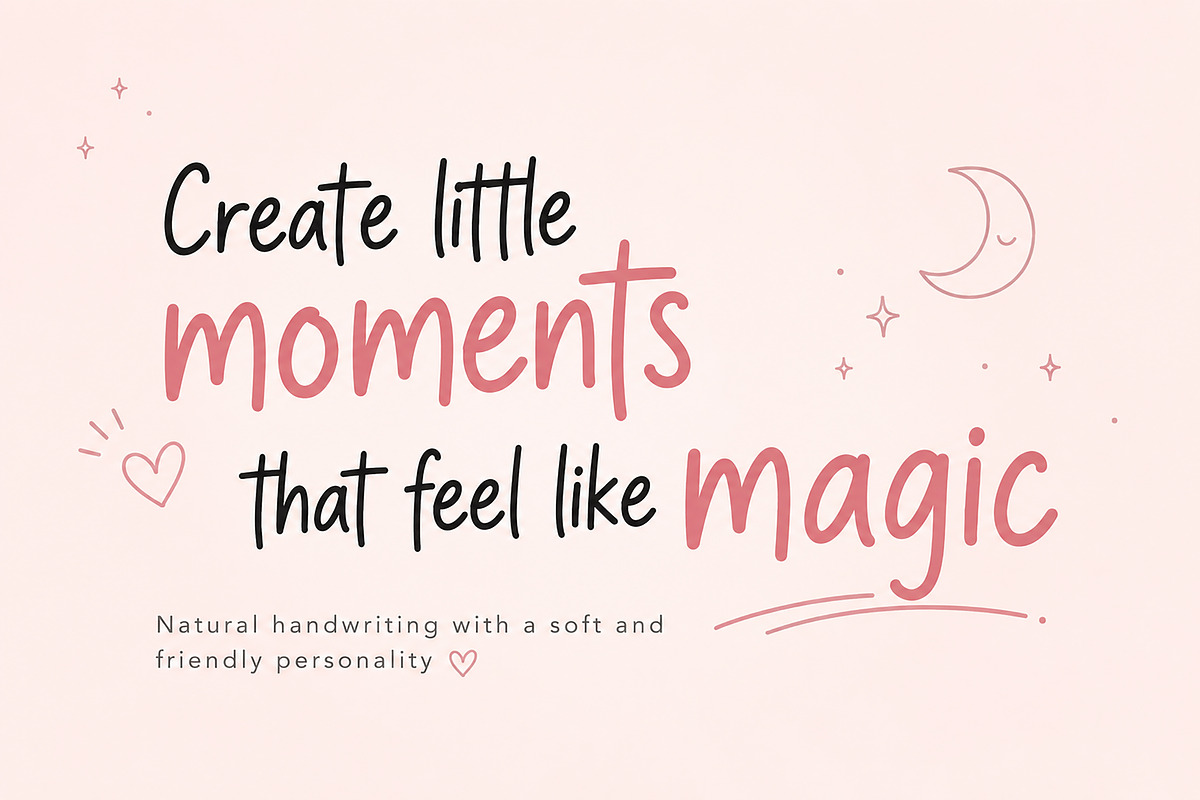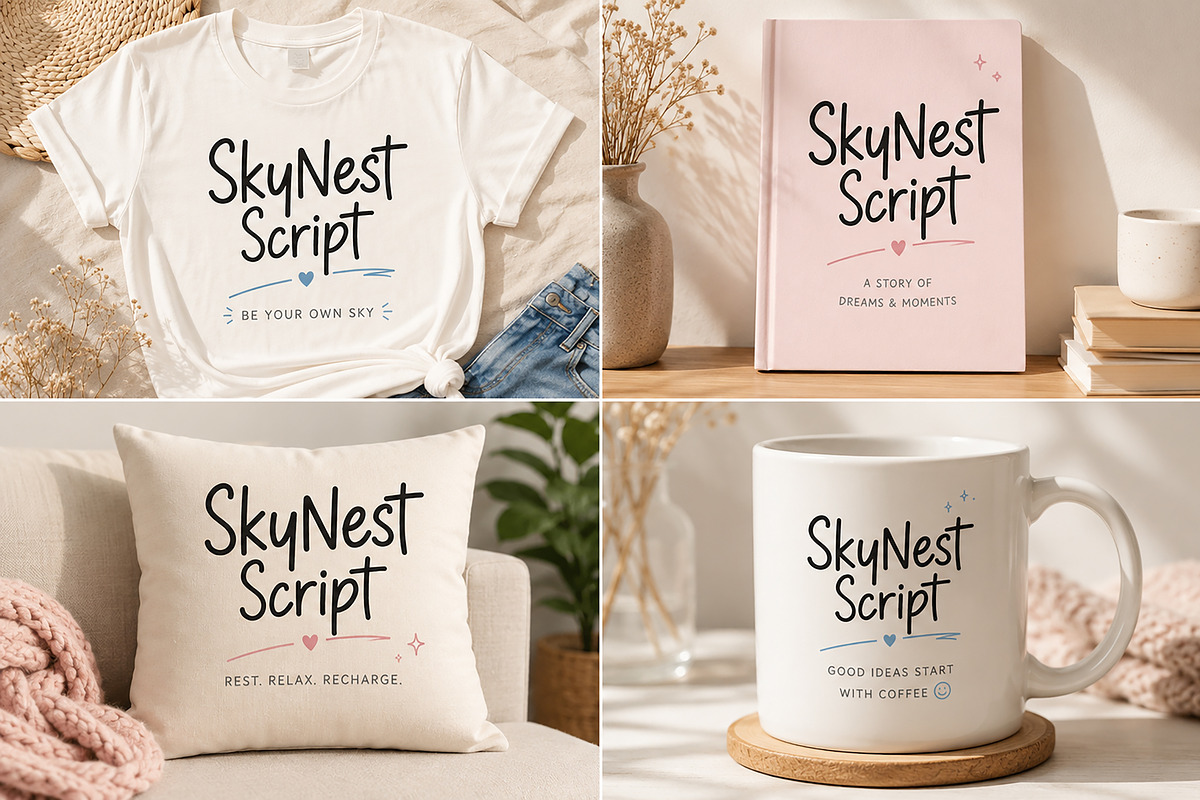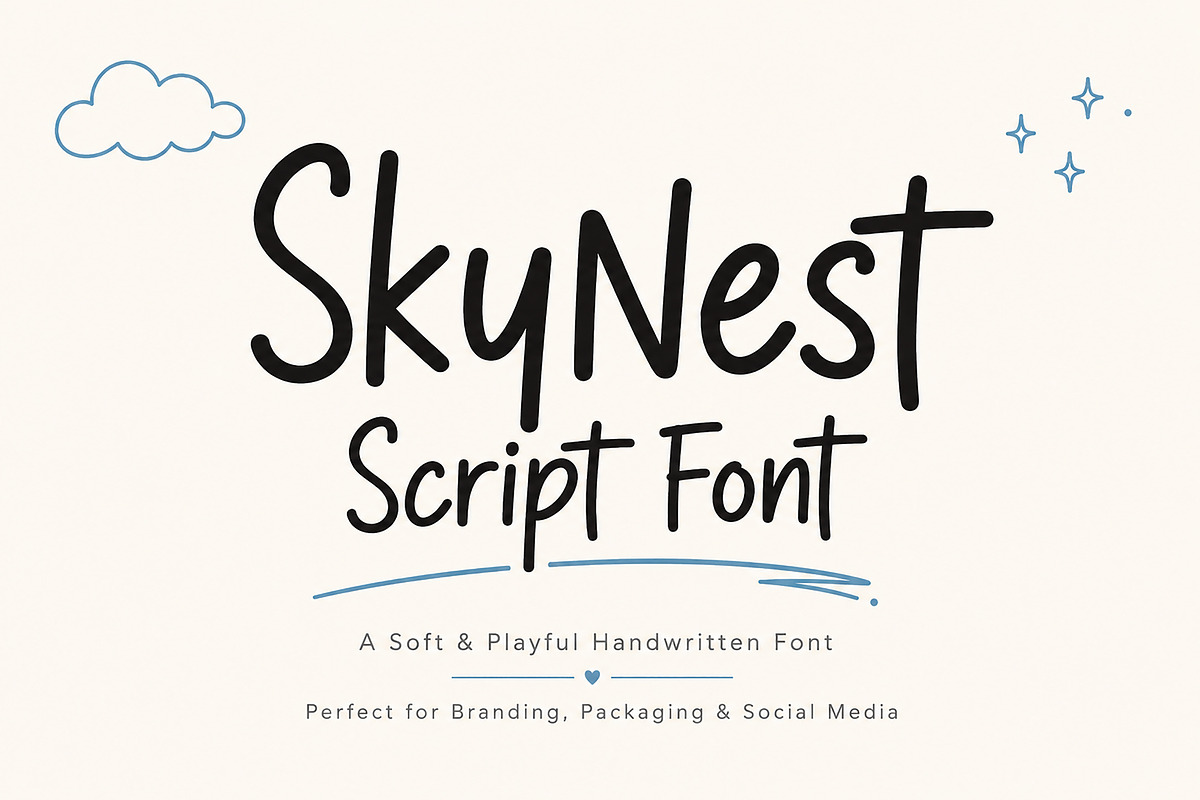
SkyNest Script
SkyNest Script is a soft, playful handwritten display font designed to bring warmth, charm, and personality to every project. Featuring smooth curves, tall letterforms, and a naturally flowing handwritten style, this font creates an inviting and friendly look while remaining clean and highly legible.
Whether you're designing logos, product packaging, social media graphics, greeting cards, invitations, or branding materials, SkyNest Script adds a handcrafted touch that feels authentic and modern.
Its unique character makes it an excellent choice for creative businesses, small brands, lifestyle products, children's designs, cafés, boutiques, beauty brands, and digital content creators.
• Logos & Branding
• Product Packaging
• Social Media Graphics
• Quotes & Typography Posters
• Greeting Cards
• Invitations & Wedding Designs
• Beauty & Skincare Branding
• Handmade Product Labels
• T-Shirts & Merchandise
• Coffee Mugs & Pillows
• Book Covers
• Stickers & Cricut Projects
• YouTube Thumbnails
• Pinterest & Instagram Content
• Children's Products
• Boutique Branding
• Soft Handwritten Style
• Playful & Friendly Appearance
• Smooth Natural Letterforms
• Clean and Readable Design
• Perfect for Display Typography
• Beautiful for Large Headlines
Ideal For
SkyNest Script is perfect for designers, entrepreneurs, crafters, content creators, and small business owners who want a handwritten font that feels soft, modern, and full of personality.